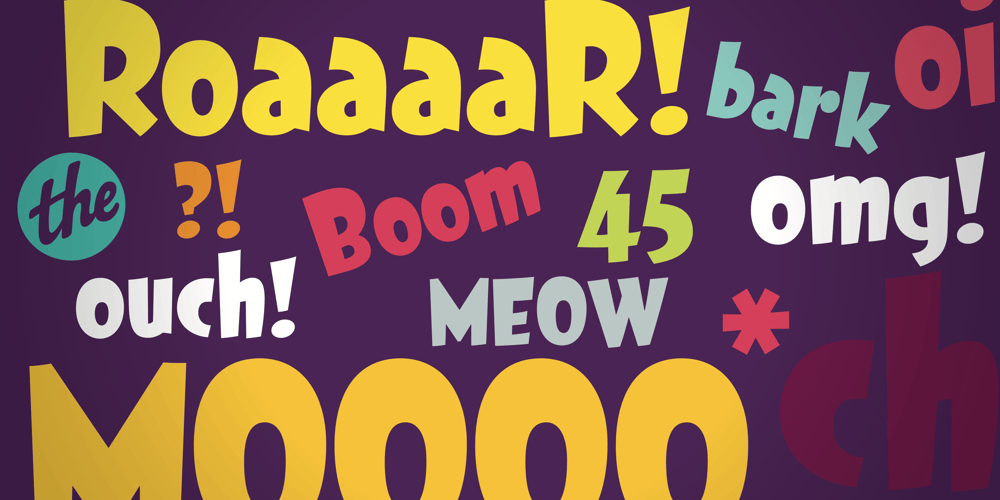
Dreamland
Dreamland font
Dreamland Font Family was designed by Jim Parkinson and published by Monotype. Dreamland contains 1 styles and family package options. Dreamland is a bold, top-heavy style inspired by mid-20th century poster lettering. It has a lower case and is quite informal.Featured in: Best Fonts for Logos